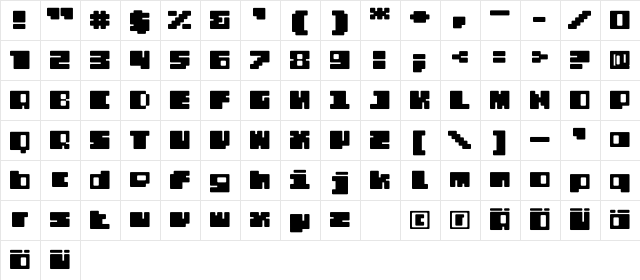
DS PTRLNormal Regular Free Font
DS PTRLNormal Regular
Design Context for DS PTRLNormal
DS PTRLNormal is a composed and adaptable typeface that performs quietly and consistently across a wide range of design contexts.